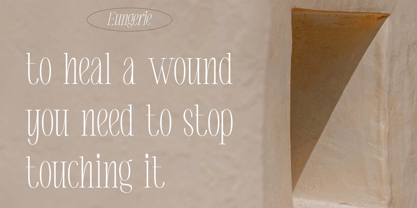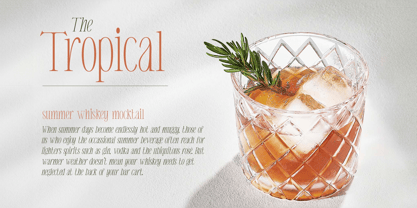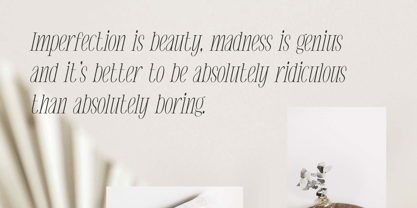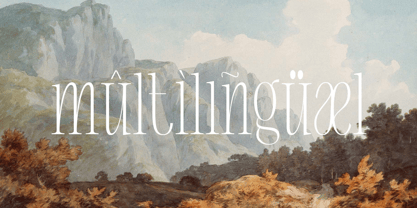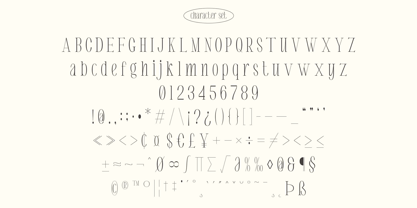
Eugerie
by Craft Supply Co
The Eugerie Font Family was designed by Trio Nazzar Saputra, Wahyu Hadi Yuana and published by Craft Supply Co. Eugerie contains 2 styles and family package options. More about this family
Eugerie – Classic Modern Typeface is a stylish typeface combines classic and modern style. It can be used to create almost all types of design projects like print materials. Just use your imagination and some graphic design set in Extras, your project will become more alive and look great than ever with Eugerie – Classic Modern Typeface..
You want to make a greeting card or a package design, or even a brand identity, craft design, any DIY project, book title, wedding font, pop vintage design, retro design or any purpose to make your art / design project look pretty and trendy? Feel free to play with this fonts!
Designers: Trio Nazzar Saputra, Wahyu Hadi Yuana
Foundry: Craft Supply Co